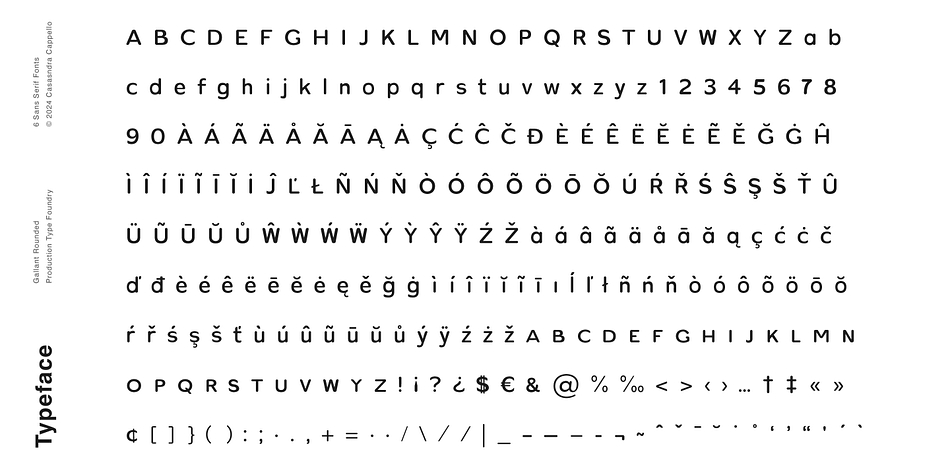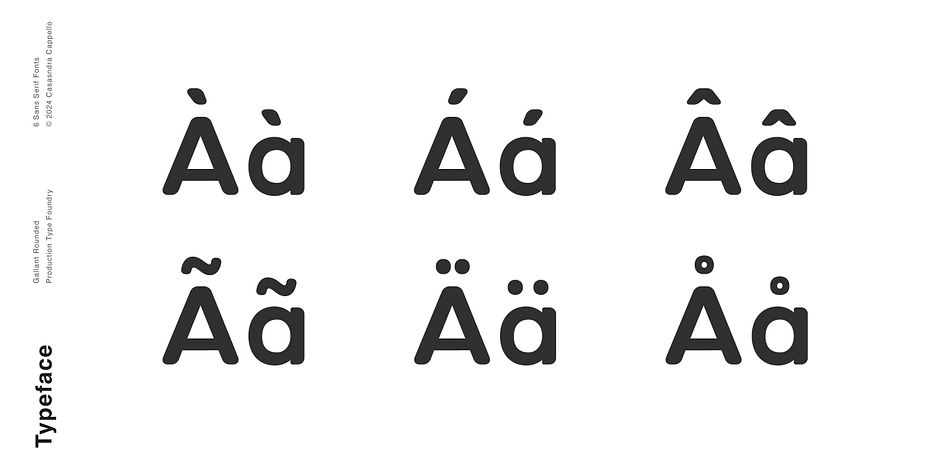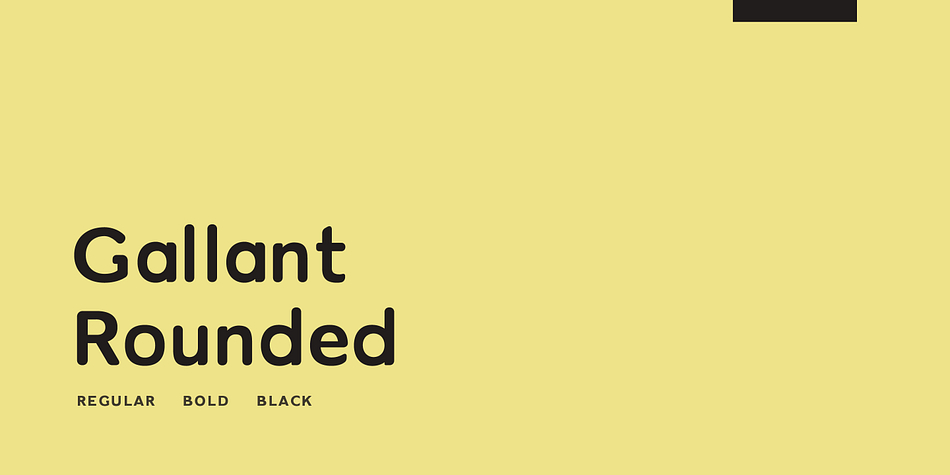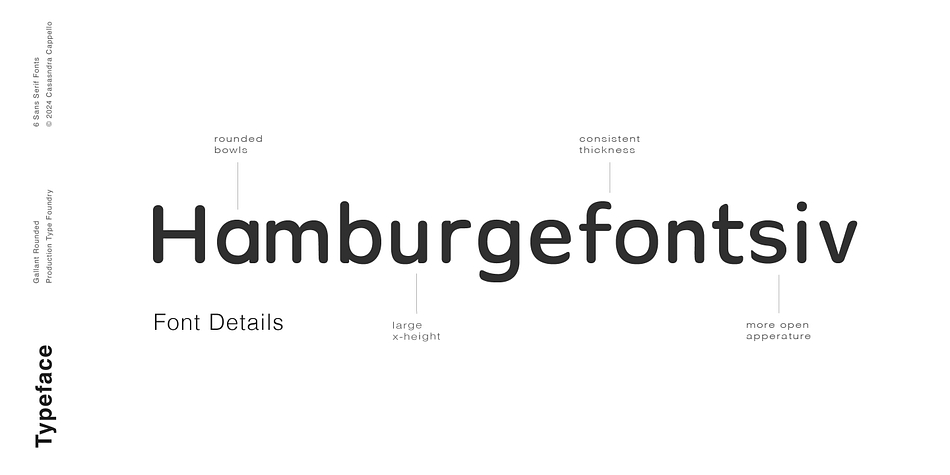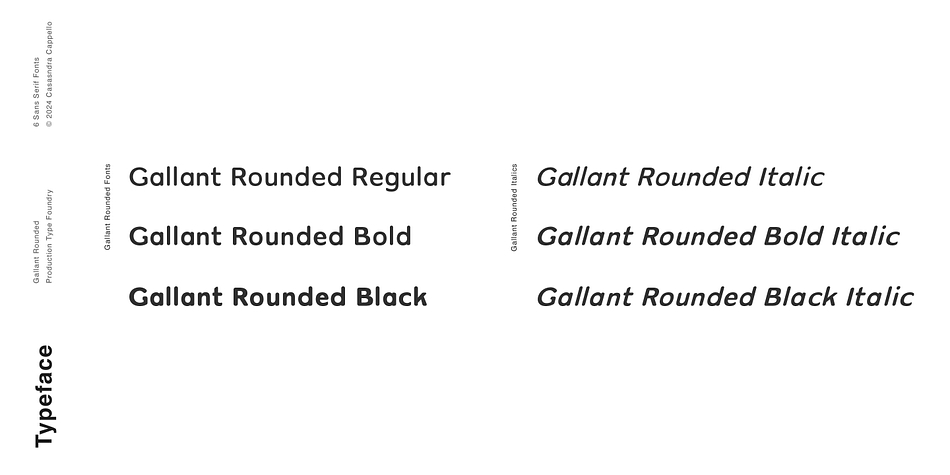
Gallant Rounded
Designed by Cassandra Cappello, Gallant Rounded is a sans serif font family. This typeface has six styles and was published by Cappello Designs.
Gallant Rounded is a modern sans serif typeface. It’s largely a Geometric typeface with some elements of a Neo-Grotesque in some of the characters in order to make it more legible. Gallant Rounded is the rounded version of our other typeface, Gallant. It has a large x-height to contribute to its legibility and this rounded version adds an element of fun.
It has a little bit of personality and can be used for both headers and body copy. This font family includes all Latin characters (including accents), numbers, special characters, and punctuation.